House Industries
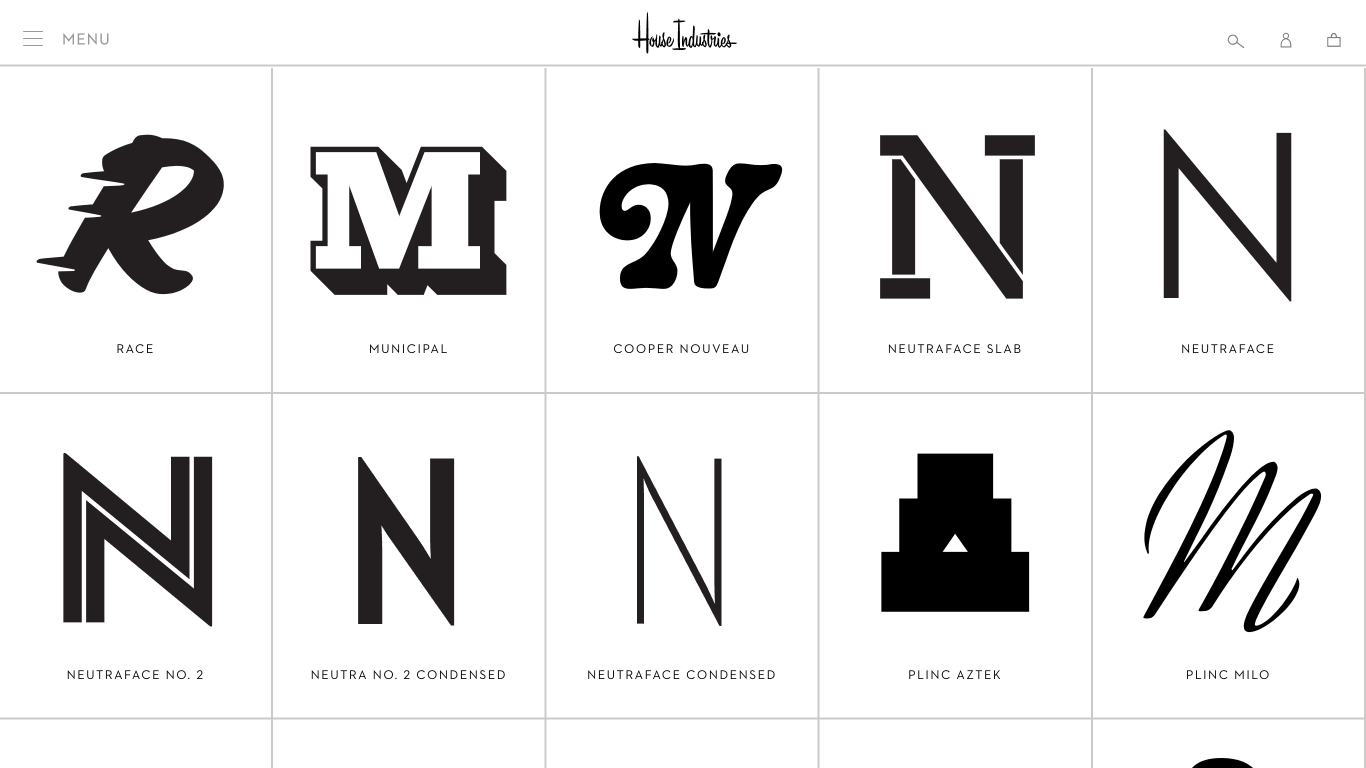
House Industries is an American type foundry and design studio founded in 1993 by Andy Cruz and Rich Roat in Wilmington, Delaware. Renowned for its eclectic and innovative approach to typography, House Industries has developed notable typefaces such as Neutraface, inspired by architect Richard Neutra's principles; Eames Century Modern, reflecting the design work of Charles and Ray Eames; and Chalet, influenced by sans-serifs like Avant Garde and Helvetica. Their diverse client roster includes collaborations with The New Yorker, Hermès, Jimmy Kimmel, and Muji. While specific awards are not detailed in the provided sources, House Industries' work has been widely recognized and featured in various design platforms and publications.